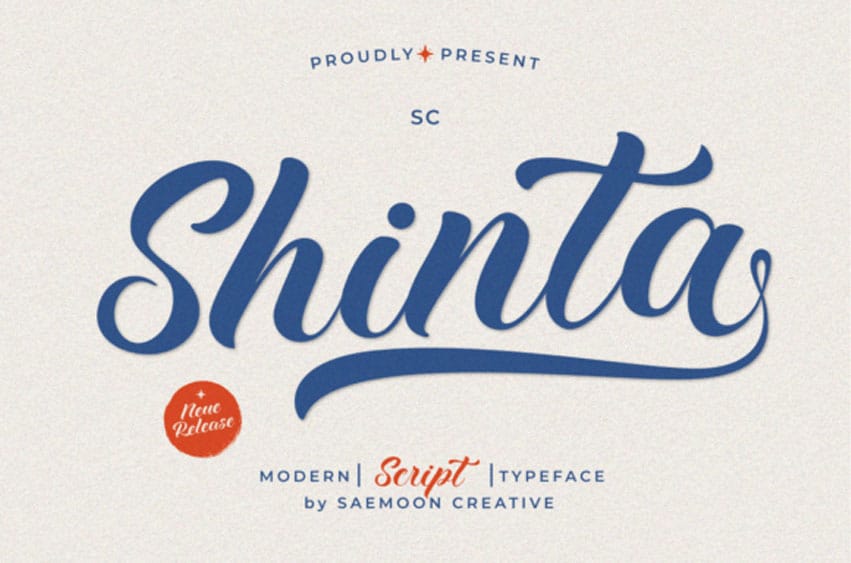
Shinta Regular Font
Shinta Regular Font is a modern script font, meticulously sculpted with streamlined contours and graceful letter transitions, infusing an air of opulence and individuality into your imaginative endeavors.
Merging timeless allure with state-of-the-art sophistication, SC Shinta spotlights masterfully constructed characters, flawless linkages, and chic flourishes. It’s the quintessential typeface to elevate logos, wedding invites, packaging, posters, and branding efforts. From a broad spectrum of design contexts, the SC Shinta font bestows each piece with a stamp of refinement and personality. Embrace SC Shinta to reinvigorate your creative work with grace and distinctive flair.